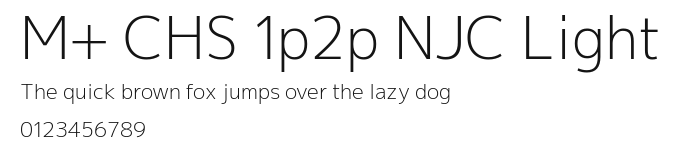
• Font Name: M+ CHS 1p2p NJC Light
• Font Style: Light
• Full Font Name: M+ CHS 1p2p NJC Light
• Version: Version 2.00
• Description: 这个版本的M+由“JK Gothic L”字体(基于2014版M+2c)修改而来,并非直接从原版M+修改。曾命名为“JK黑体”。后将假名部分以及西文部分替换为2016版M+ 2p(少数字符如“M”、“g”等采用1p)之后,改名为“简体中文M+”。
About M+ CHS 1p2p NJC Light.otf
M+ CHS 1p2p NJC Light.otf is a modern, elegant sans-serif font designed for ultimate readability and visual harmony. Perfect for branding, headlines, web design, and print materials.